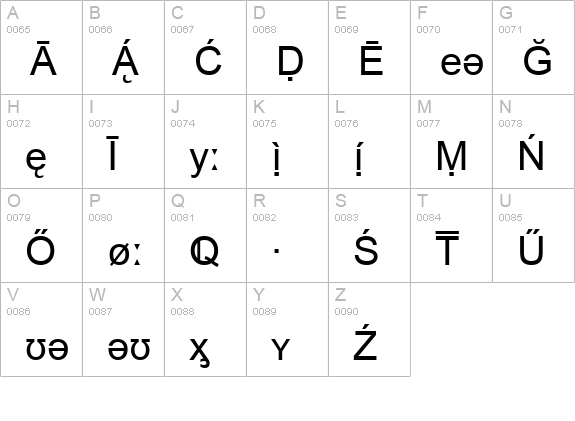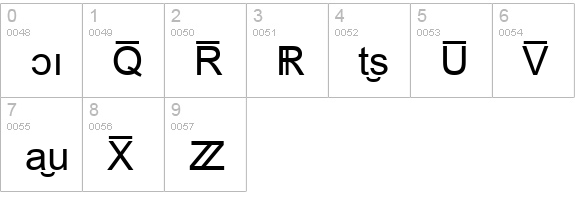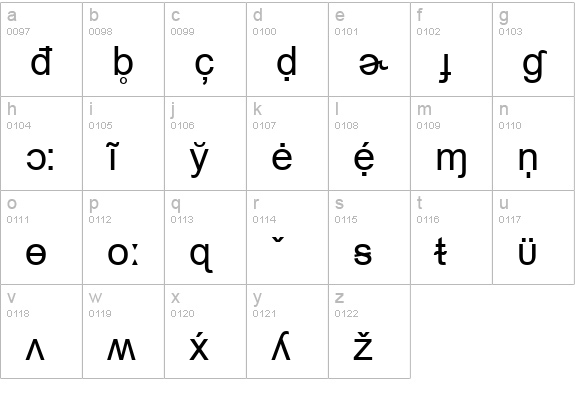
Bookshelf Symbol 5 font is a unique and eye-catching typeface that brings a touch of elegance and sophistication to any design project. With its bold and intricate symbols, this font is perfect for adding a touch of flair to your creative work. Whether you are designing a book cover, poster, or logo, Bookshelf Symbol 5 font will make your text stand out and leave a lasting impression. What makes Bookshelf Symbol 5 font even more appealing is that it is available for free download at FontsMarket.com. This means you can easily access this stylish font and use it in your projects without any cost. So why wait? Add a touch of class to your designs with Bookshelf Symbol 5 font today!